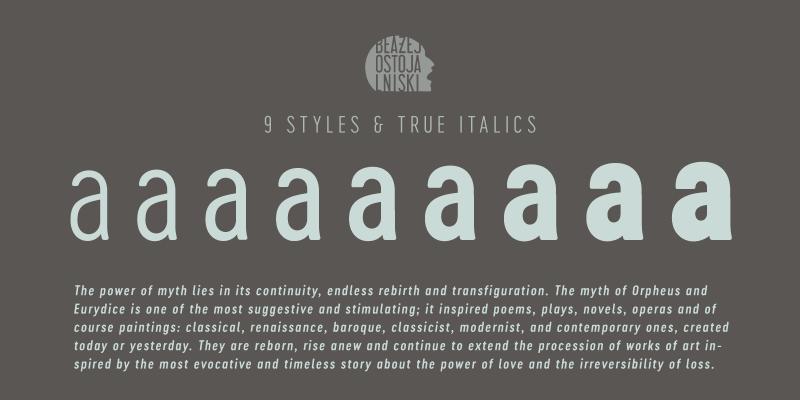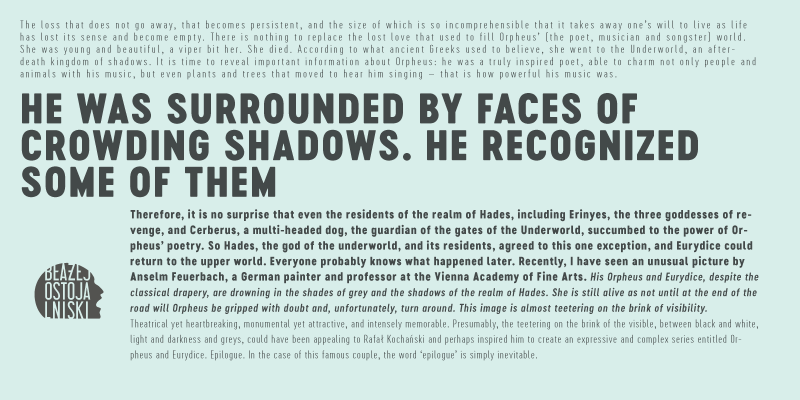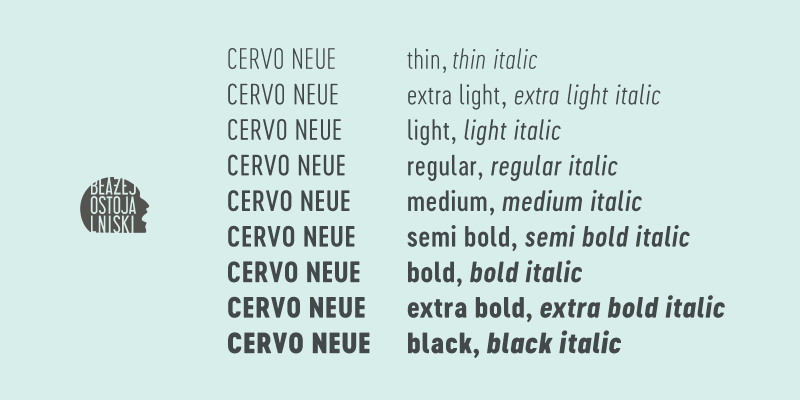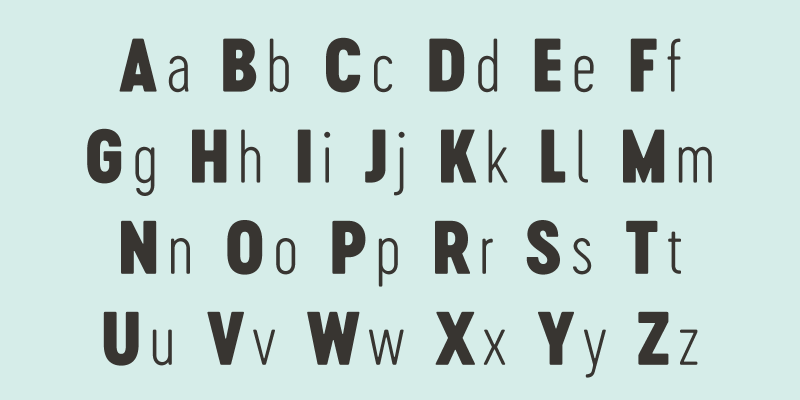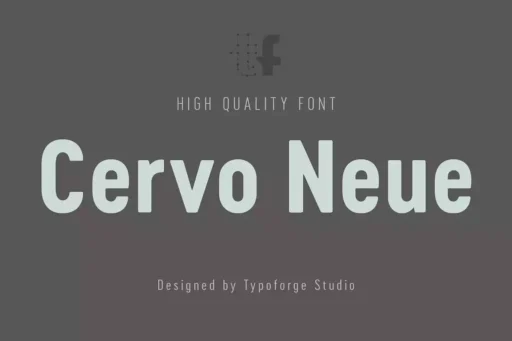
Cervo Neue Font
Cervo Neue Font is an enhanced and expanded adaptation of the beloved Cervo font, featuring new attributes and improvements. Cervo Neue is a close relative of a classic…
Cervo Neue Font is an enhanced and expanded adaptation of the beloved Cervo font, featuring new attributes and improvements. Cervo Neue is a close relative of a classic design while still moving typography in a new direction.
Cervo Neue derives from the aesthetic philosophy of the Polish mid-century design. Its concept represented by the renowned magazine You And Me Monthly (Jedynka I Tylko) addressed to Polish audience for thirteen years (1960 to 1973) under the management of National magazine publisher RSW Prasa in Poland. With this cultural heritage, Cervo Neue is born, overlapping all letters with nostalgia and modernity.
Cervo Neue consists of sixteen flexible styles in one family. Each variant is designed with a particular emphasis on detail to meet contemporary design needs. Unlike its predecessor, Cervo Neue features heightened accents over glyphs, enlarged punctuation marks, classic old-style numerals, and the exciting addition of four new weights: Semi Bold, Bold, Extra Bold and Black. In addition, a new grotesque emerges and expands the opportunities of creativity in regard to a unique typeface that makes graphic designers inclined towards the new directions it brings.
Cervo Neue has clear and objective design that makes perfect balance between activity and legibility, giving designers freedom. In all its forms, it is marked by a timeless elegance which is still adaptable and can be applied in different areas. The simplicity and elegance of Cervo Neue will make any project, regardless of its form – be it a print publication, digital interface or branding material, visually more effective and assure the designers that their creative ideas are just coming true.
Cervo Neue is a superb celebration of the typography and design tradition and an embodiment of timeless design virtues. The synthesis of tradition and innovation which the Helvetica is a part of makes it attractive for the modern typeface which allows the designers to use new aspects as well as to break the limits of creative expression.
Hence, Cervo Neue Font is a perfect mixture of classical and modern so that designers can implement their ideas with grace and correctness. Cervo Neue continues to attract and fascinate viewers with its history, elegance, and old-school feel, setting itself a valuable example in the world of typography and design.
Where Cervo Neue Font works best
Cervo Neue Font stays legible at small sizes, which makes it a strong choice for navigation, buttons and dashboards in web design and app interfaces.
Clean sans serifs like Cervo Neue Font are the default language of SaaS, fintech and product branding.
What is Cervo Neue Font good for?